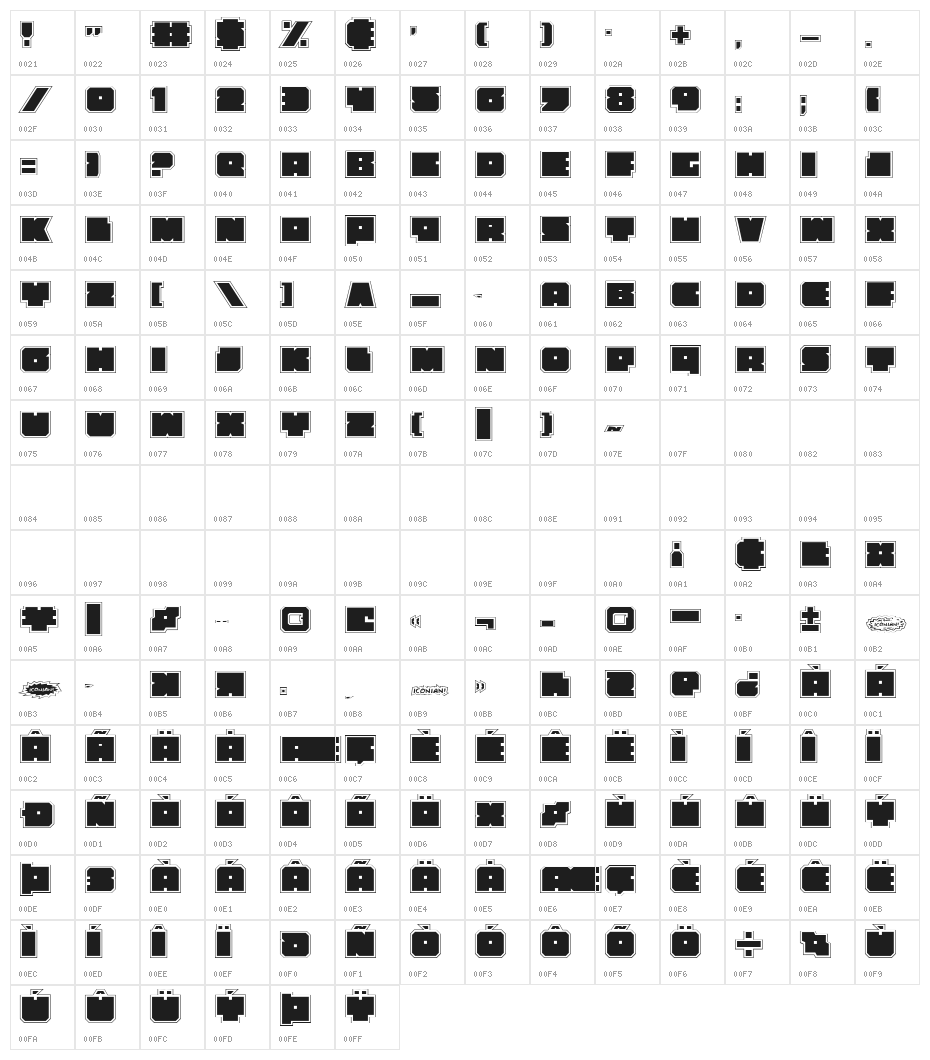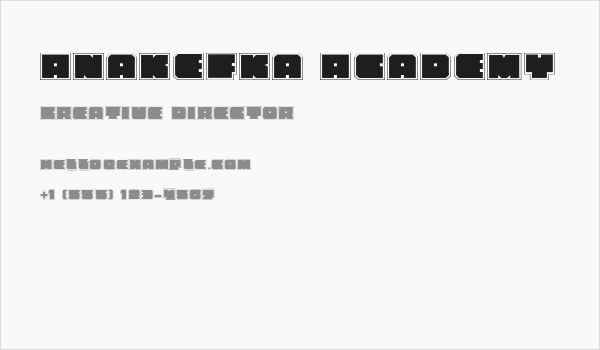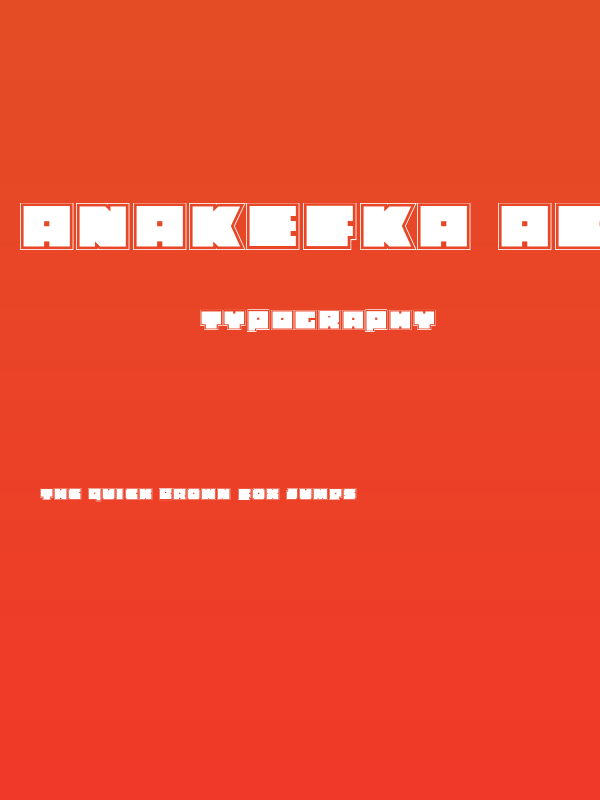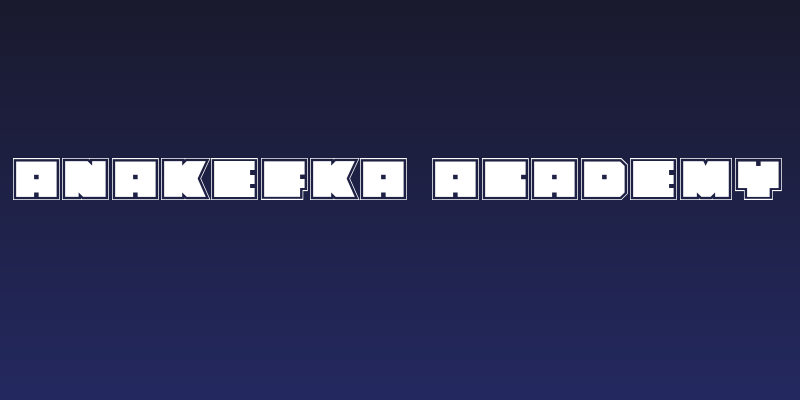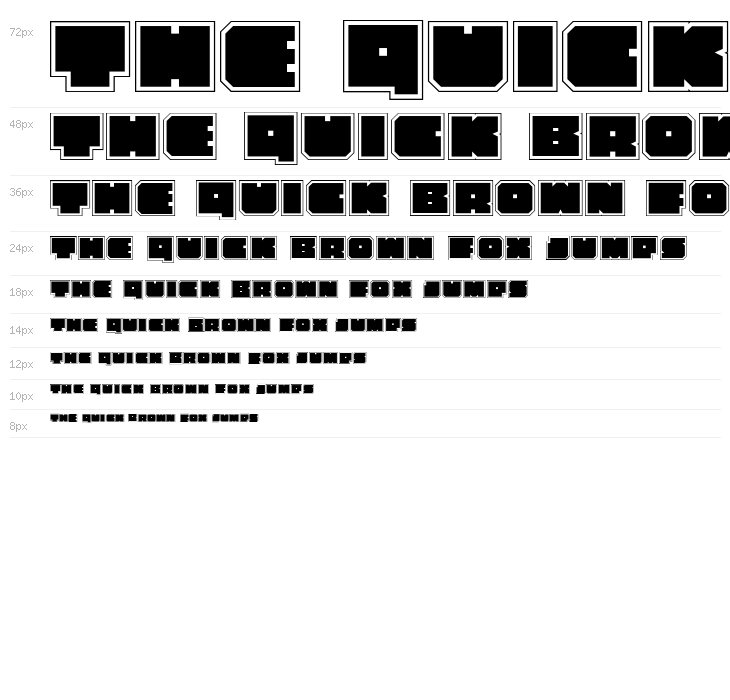
Anakefka Academy Font
Anakefka Academy Description
This font features a bold, geometric design with a strong presence. Each character is crafted with thick, block-like shapes, creating a sense of solidity and impact. The letters are uniformly wide, with sharp angles and straight lines that give a modern, industrial feel. The characters are outlined, adding an extra layer of depth and dimension. This style is consistent across uppercase, lowercase, numbers, and special characters, maintaining a cohesive look throughout. The font's boldness and distinctiveness make it ideal for attention-grabbing designs.
| Proposed Projects | Ideal for posters, logos, video game graphics, and any project requiring a strong, impactful typeface. |